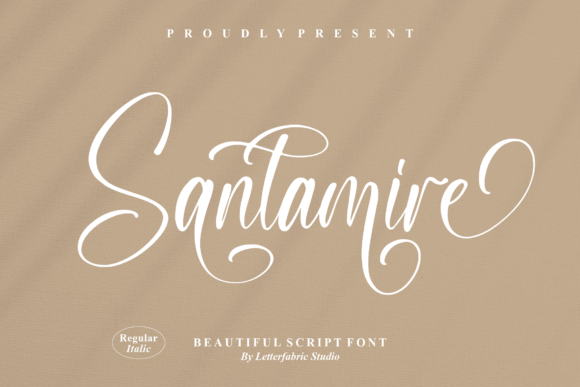
Journey into the realm of elegance and sophistication with Santamire Script Font, a captivating creation by Letterfabric. This exquisite script font exudes charm and grace, leaving an enduring impression on your designs.
Santamire is not just a font; it's an expression of artistry that transforms ordinary words into captivating visual masterpieces. Its meticulously crafted curves and swashes dance across the page, evoking a sense of timeless beauty and effortless style.
With Santamire, you'll discover a versatile companion for your creative projects. Whether you're designing logos, branding materials, product labels, or crafting heartfelt invitations, this font effortlessly adapts to your vision, adding a touch of refinement and elegance that sets your work apart.
Santamire's PUA encoding opens up a world of possibilities, granting you access to a treasure trove of stunning glyphs and ligatures. Unleash your creativity and explore endless combinations to create designs that captivate and inspire.
Elevate your digital presence with Santamire, the ultimate choice for minimal websites. Its clean lines and airy aesthetic bring a breath of fresh air to your online spaces, enhancing user experience and leaving a lasting impression.
Experience the magic of Santamire today and let your designs shine with unparalleled beauty and grace. Embrace the power of this enchanting script font and embark on a creative journey that will leave you spellbound.